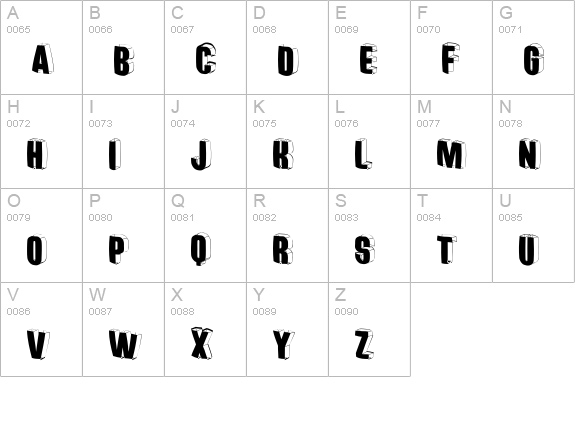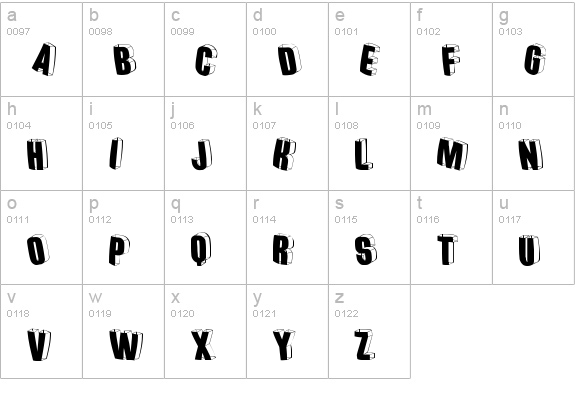
ThreedimensionalRound Font Details
ThreedimensionalRound font is a stunning typeface that adds depth and dimension to your designs. With its intricately crafted 3D appearance, this font brings a unique and eye-catching element to any project. Whether you are designing a logo, creating a poster, or working on a website, ThreedimensionalRound font is sure to make a lasting impression. This font features rounded edges and bold letterforms, giving it a modern and contemporary feel. Its three-dimensional effect adds a sense of visual interest and depth, making your text pop off the page. ThreedimensionalRound font is versatile and suitable for a wide range of design purposes, from advertising to branding and everything in between. One of the best features of ThreedimensionalRound font is that it is freely available to download at FontsMarket.com. This means that you can easily access and use this font in your projects without any restrictions. Whether you are a professional designer or a hobbyist, ThreedimensionalRound font offers you the opportunity to enhance your creations with its unique and captivating style. So why wait? Download ThreedimensionalRound font today and take your designs to the next level. With its free availability and stunning visual impact, this font is a must-have for any design enthusiast. Start incorporating ThreedimensionalRound font into your projects and watch as your designs come to life with depth and dimension.